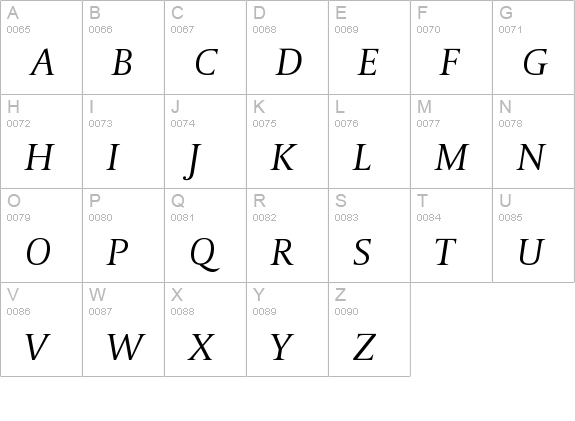
DTLParadoxT-Italic is a distinctive, italic variant in the DTLParadoxT typeface family \xE2\x80\x94 well suited to design and typography projects.
DTLParadoxT-Italic is a modern and sophisticated font designed to make a statement. With its sleek and elegant design, it is perfect for adding a touch of style to any project. The italicized letterforms exude a sense of sophistication and professionalism, making it ideal for use in branding, marketing materials, or any design project where a touch of elegance is desired. This font is not only visually appealing but also versatile, making it suitable for a wide range of applications. Whether you are designing a logo, creating a poster, or working on a website, DTLParadoxT-Italic will help you achieve a polished and professional look. And the best part? DTLParadoxT-Italic is available for free download at FontsMarket.com. So why wait? Enhance your projects today with this stunning and stylish font.